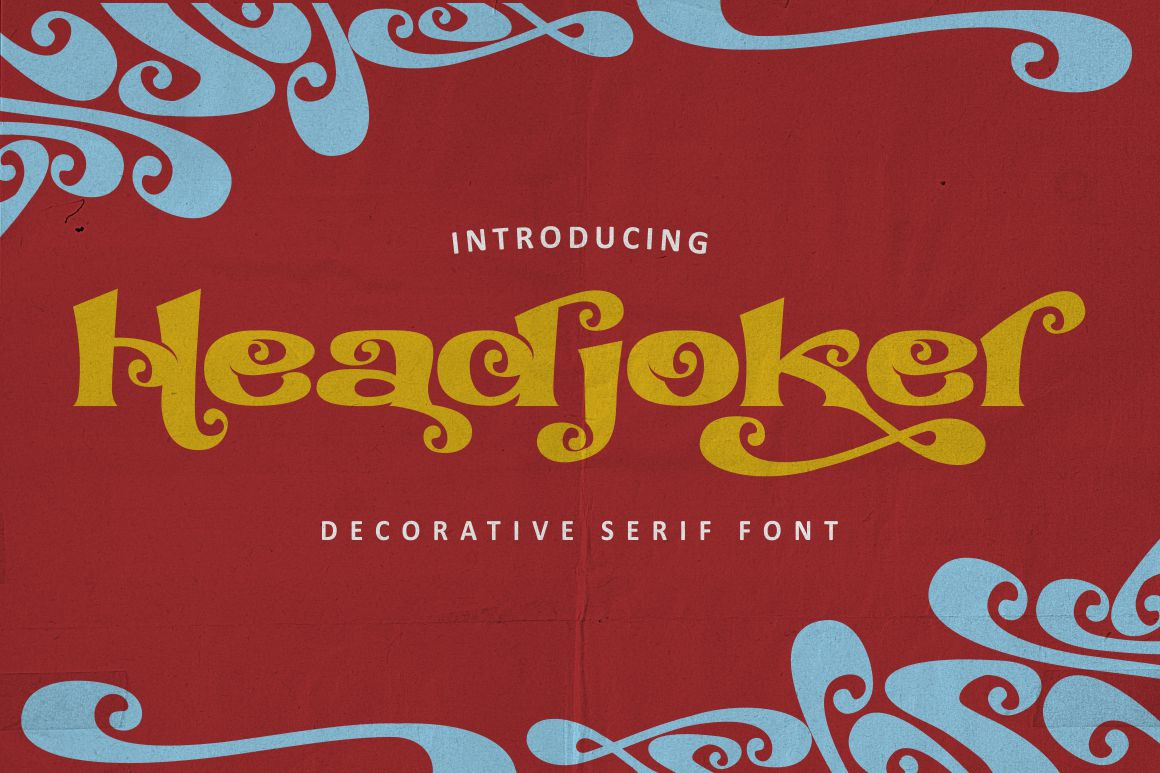
Headjoker - Decorative Serif Font
Introducing Headjoker - Decorative Serif Font
Headjoker is a display serif font with beautiful ligatures, tons of alternative glyphs and multilingual support. It's bold, clean and unique with vintage fell. Headjoker is very versatile font that works great in large and small sizes. Come with open type feature with a lot of alternates, its help you to make great lettering. Headjoker best uses for heading headlines, cover, poster, logos, quotes, product packaging, merchandise, social media & greeting cards and many more.